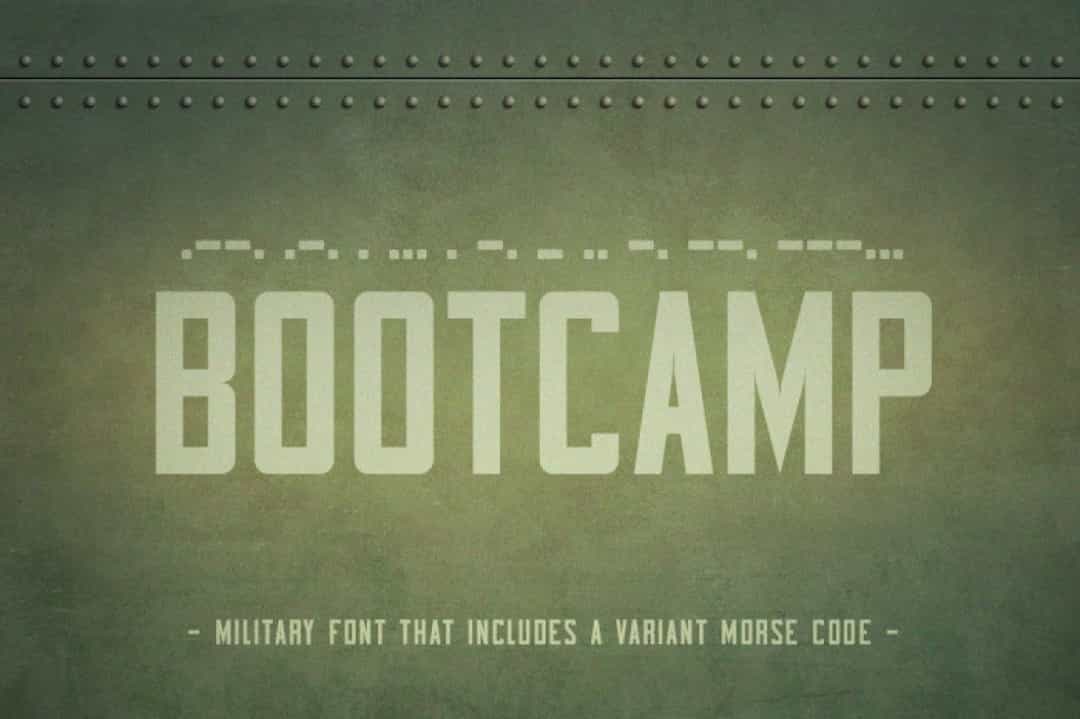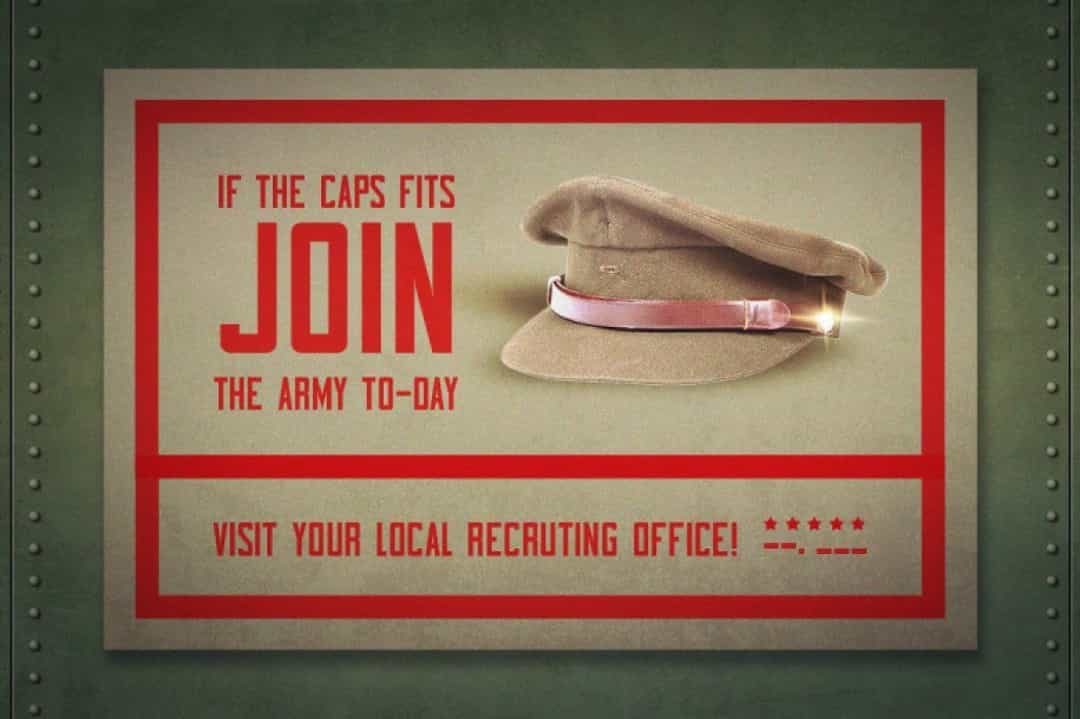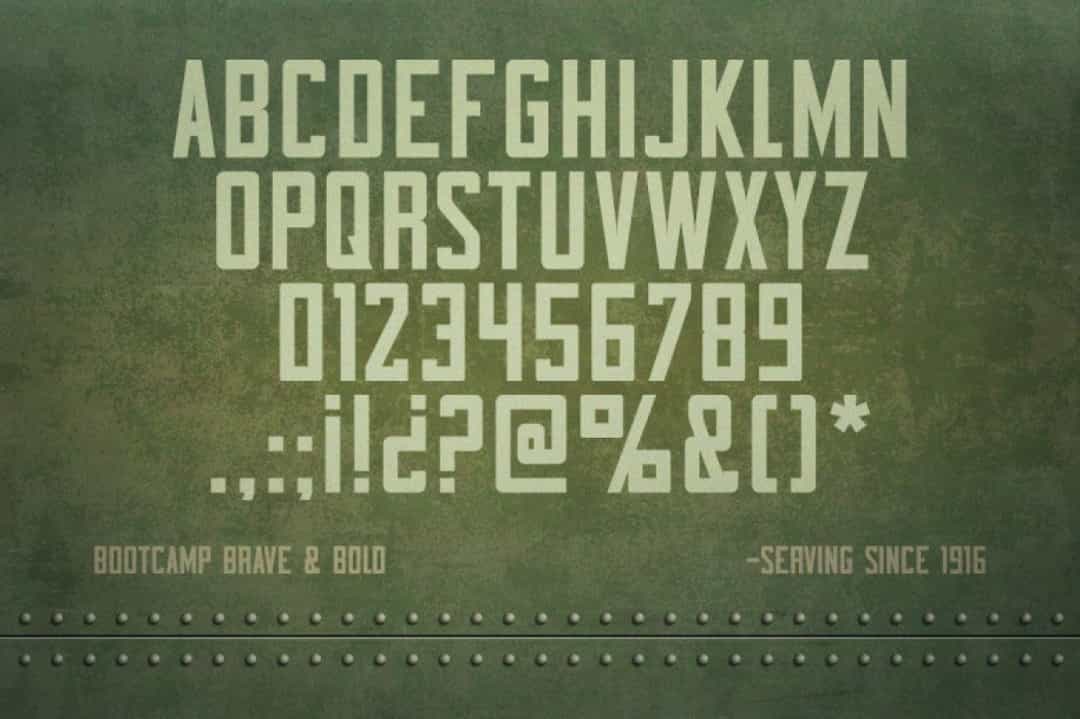
Bootcamp is a condensed military style font originally intended to serve as the basis of a WW1 memorial design for vets. However, after its creation we found that an equally fitting alternative would be Morse code version; which was an extremely common way of communication prior to WWII; its dashes and dots represent two font families which reflect simpler times when making sacrifices was not questioned in any way.